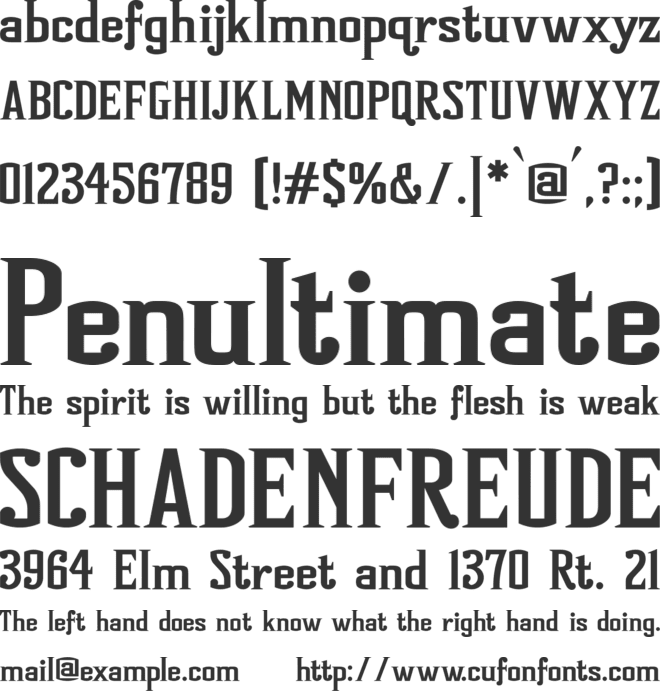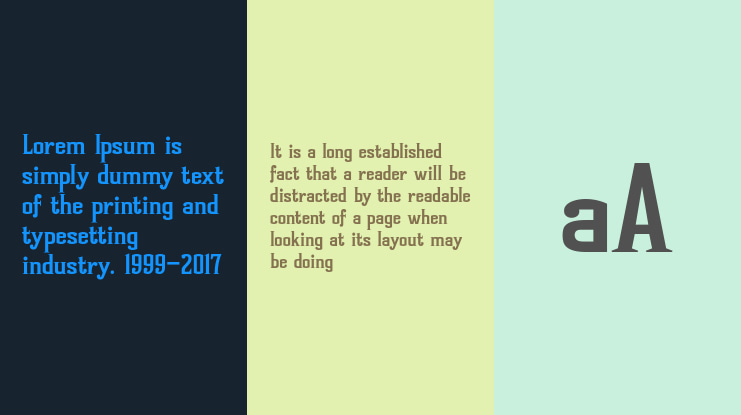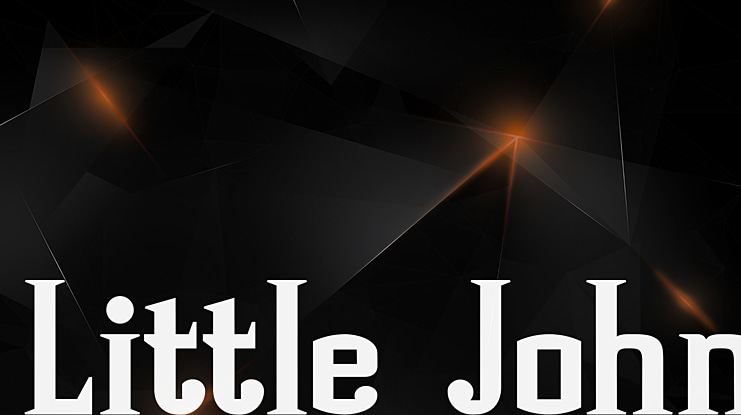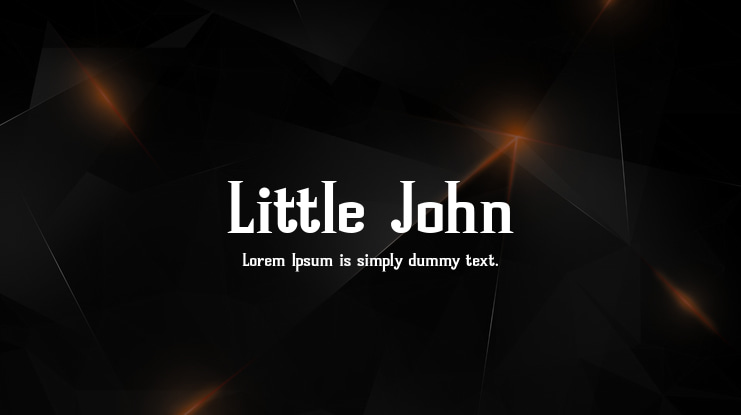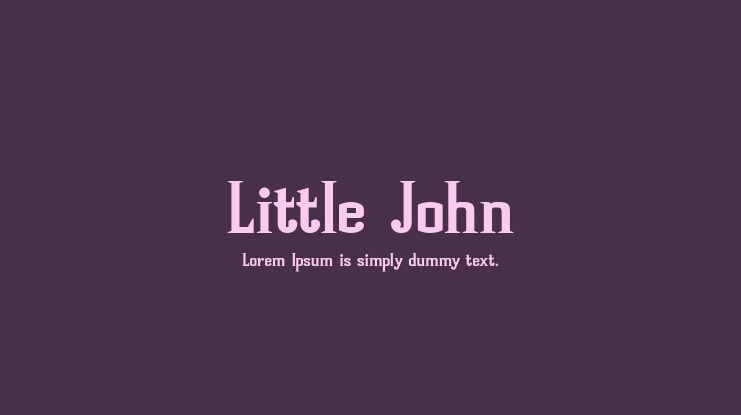
Little John Font
John Ross (October 3, 1790 – August 1, 1866), also known as Guwisguwi (meaning in Cherokee a "Little White Bird"), was the Principal Chief of the Cherokee Nation from 1828–1866. nick name Little John.
it's a display font. It may work for text font but i doubt it. I just like the way it looks. i think it's cool.